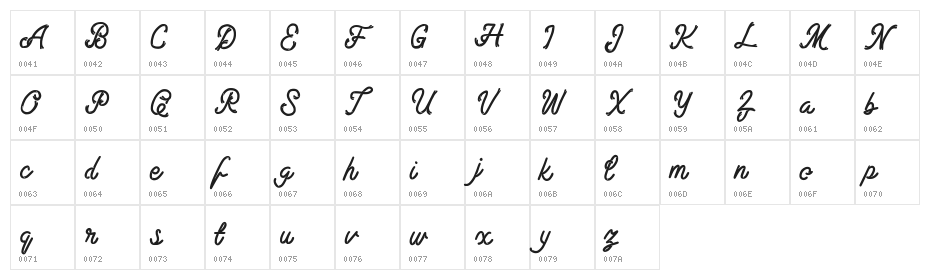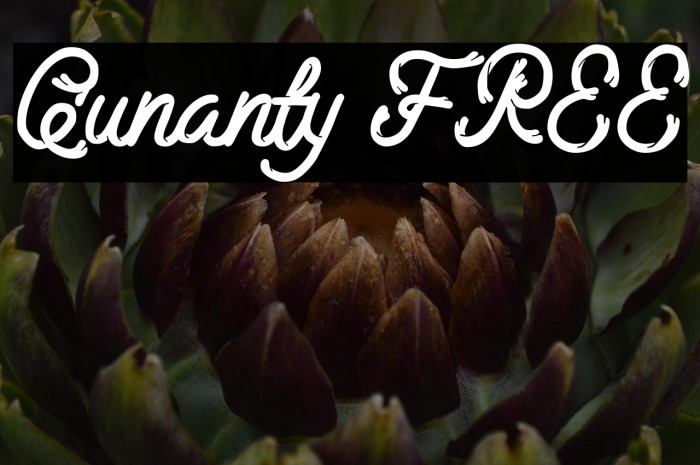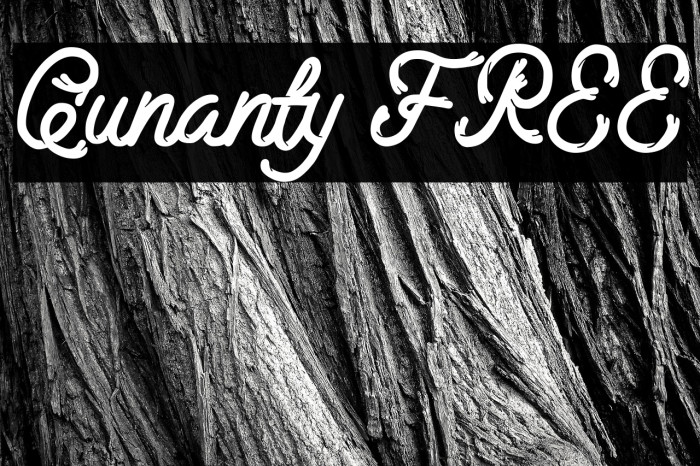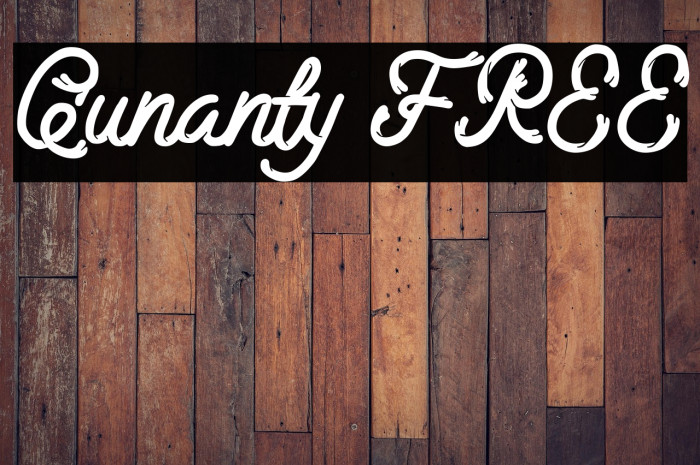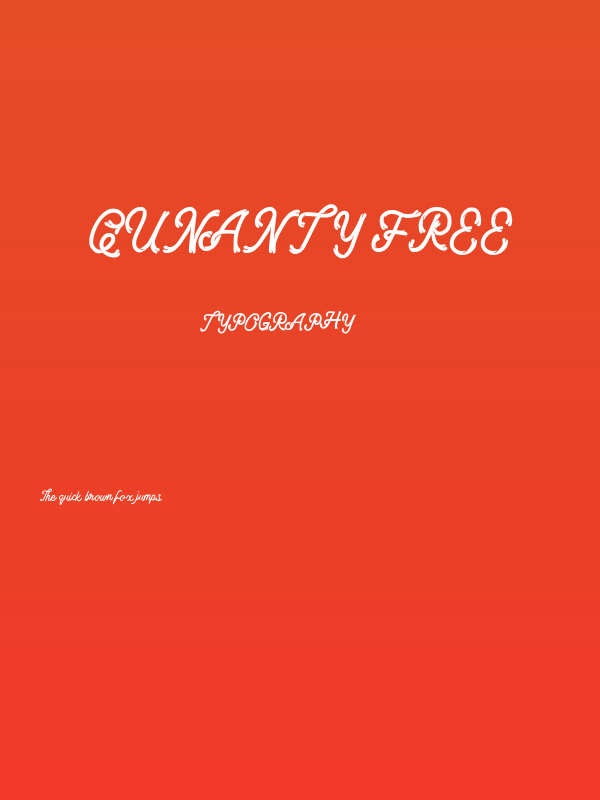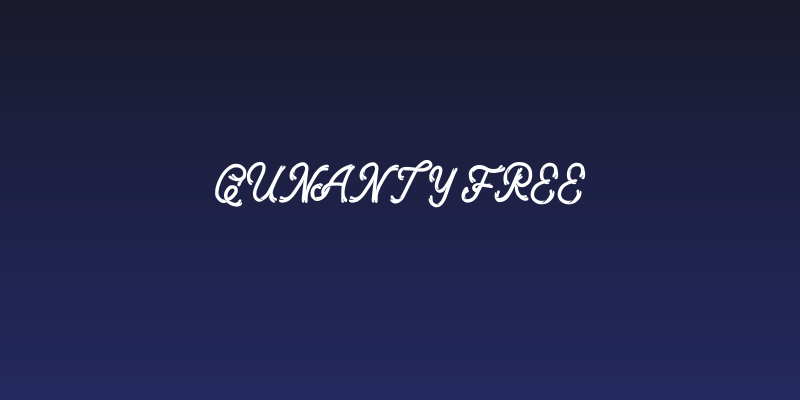
Qunanty FREE Font
Qunanty FREE Description
This font exudes a dynamic and elegant script style, characterized by its flowing, cursive letterforms. The strokes are bold and expressive, with a slight slant that adds a sense of movement and grace. Each character is intricately designed, featuring smooth curves and loops that connect seamlessly, creating a harmonious and cohesive appearance. The uppercase letters are particularly ornate, with decorative flourishes that enhance their visual appeal. The lowercase letters maintain a consistent style, complementing the uppercase with their own subtle embellishments. This font is ideal for projects that require a touch of sophistication and flair, such as invitations, branding, and decorative headlines.
| Overall Style | Elegant, Decorative |
| Use Case | Headlines, Invitations, Branding |
| Proposed Projects | Ideal for wedding invitations, elegant branding, decorative headlines, and artistic projects. |